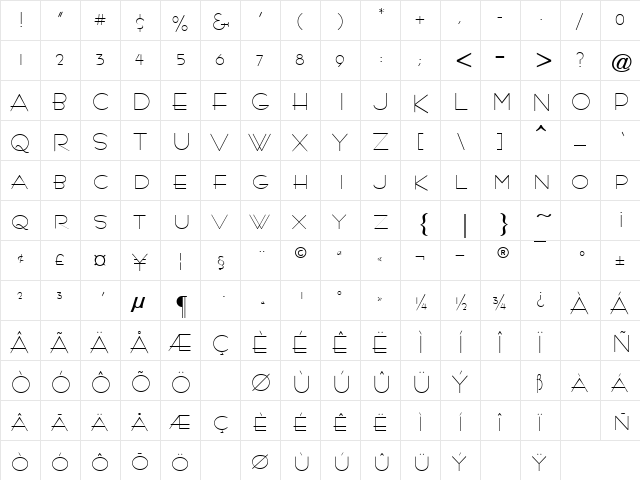
RamoseCaps Normal
Design Context for RamoseCaps Typeface
RamoseCaps is a composed and adaptable typeface that performs quietly and consistently across a wide range of design contexts.